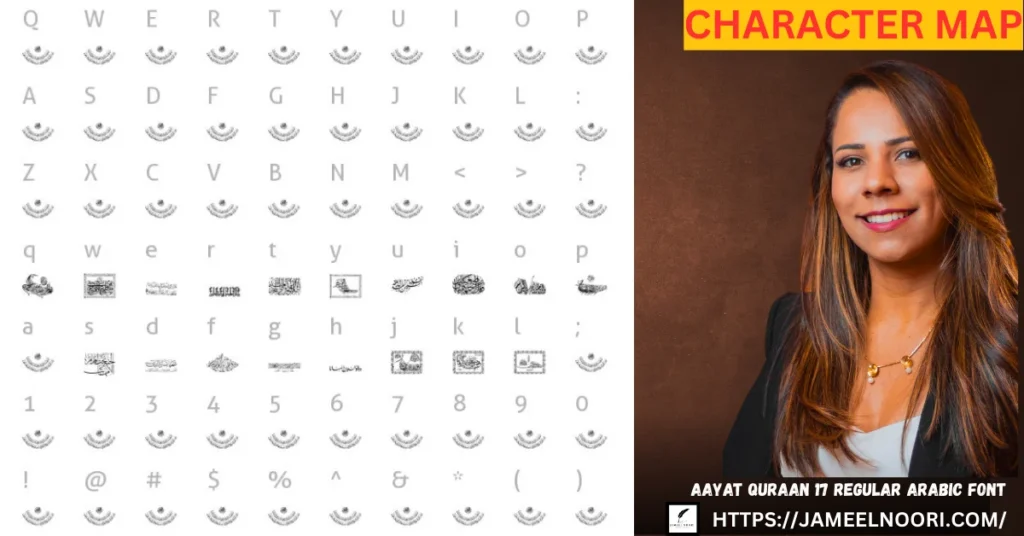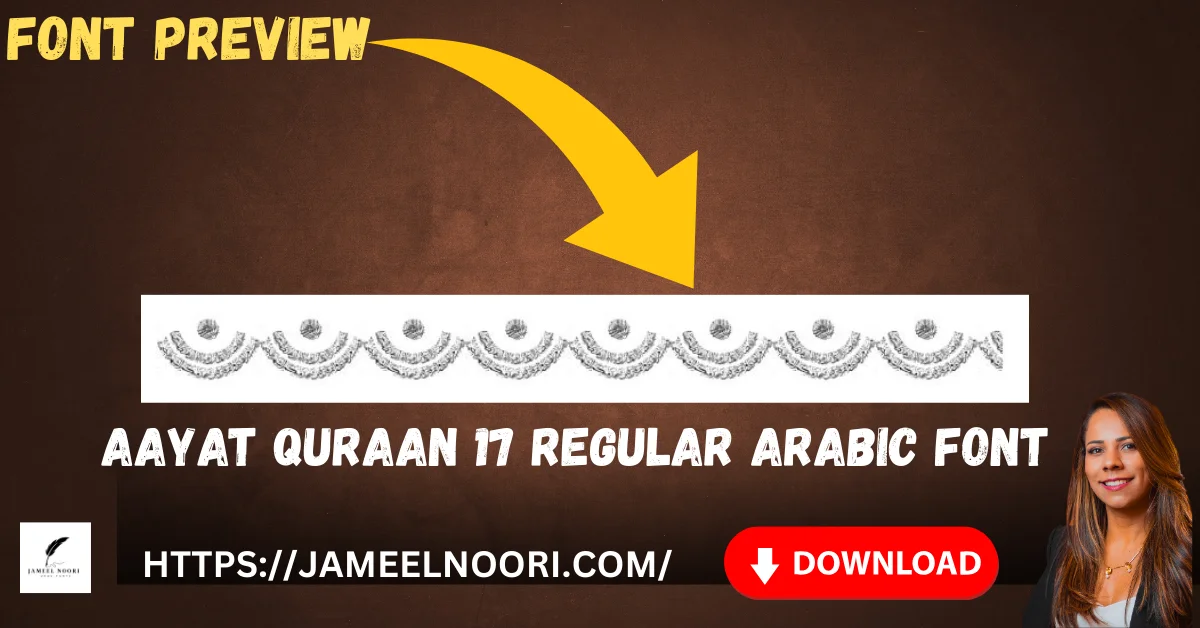
Features of Aayat Quraan 17 Regular Arabic Font
Aayat Quraan 17 Regular Arabic Font comes with numerous features that make it stand out from other Arabic fonts. Some key features include:
- Elegant calligraphy style suitable for Urdu fonts and religious content.
- High readability for digital publishing, presentations, and print projects.
Why Choose Aayat Quraan 17 Regular Arabic Font
Choosing the best Arabic font is crucial for professional projects, and Aayat Quraan 17 Regular Arabic Font is an excellent choice because:
- It preserves traditional Arabic calligraphy aesthetics.
- It works seamlessly for Urdu fonts and multi-lingual content.
Applications of Aayat Quraan 17 Regular Arabic Font
Aayat Quraan 17 Regular Arabic True Type Font is versatile and can be used in:
- Quranic manuscripts and religious publications.
- Graphic design projects requiring best Arabic font styles.
- Web design and UI/UX interfaces with Arabic fonts support.
- Academic or educational materials in Urdu or Arabic.
Aayat Quraan 17 Regular Arabic Font is a top choice for designers, calligraphy enthusiasts, and content creators in Pakistan. Its TrueType format, high readability, and compatibility with Urdu fonts and Arabic fonts make it an ultimate guide for professional use. Whether for print, web, or educational content, this font ensures your work looks authentic and visually appealing.
What makes it different from other Arabic fonts?
Its traditional calligraphy, high user rating, and elegant readability make it unique.